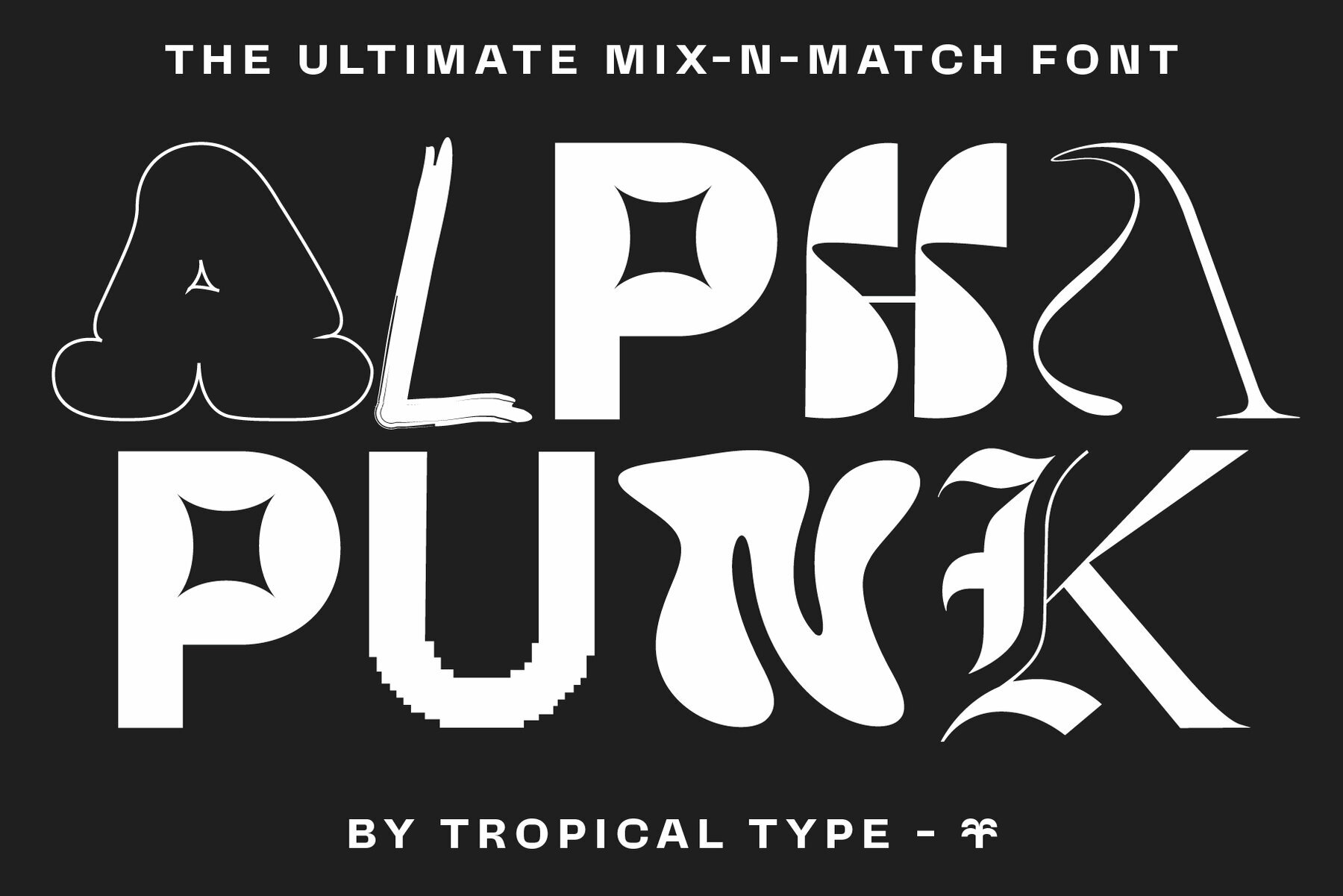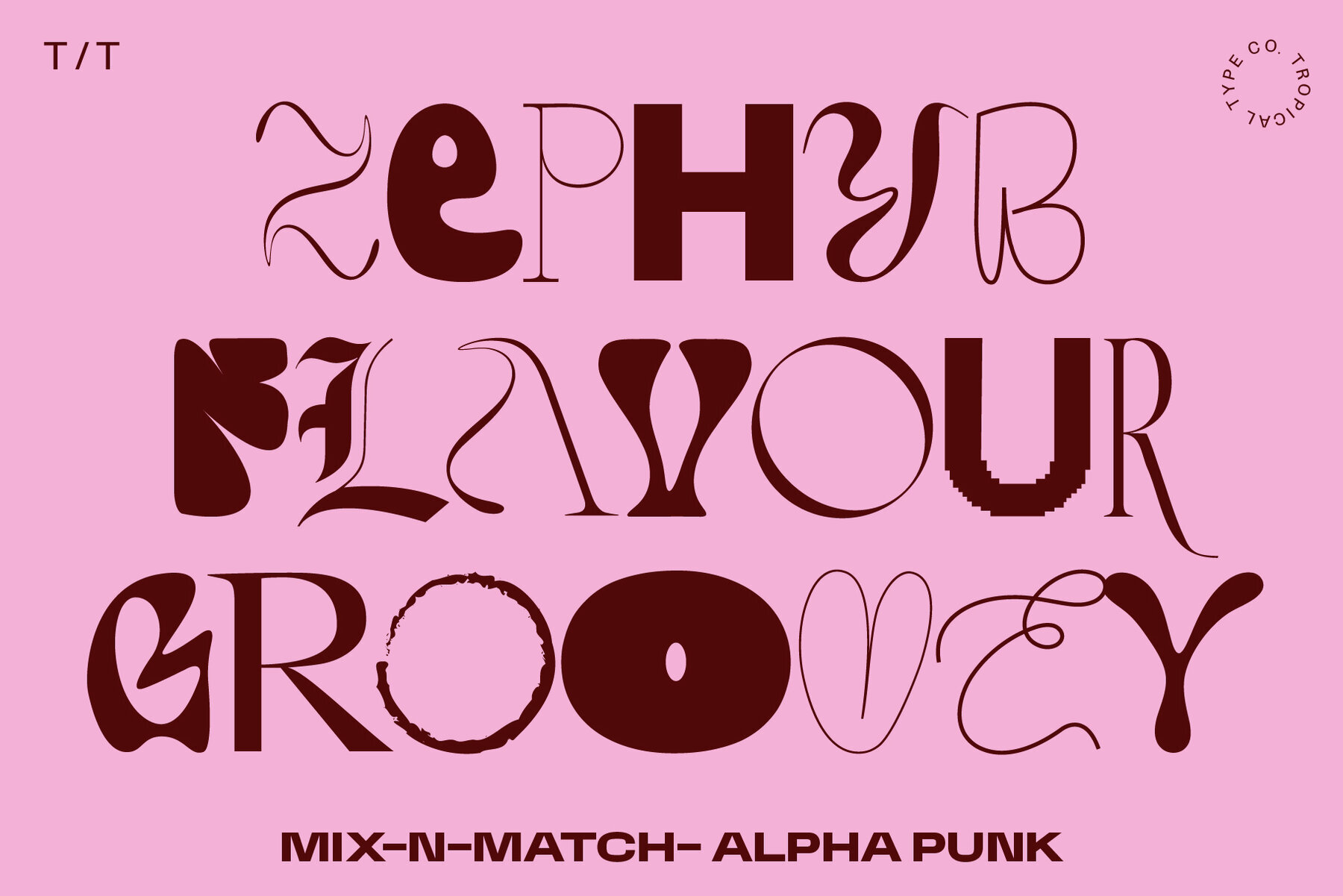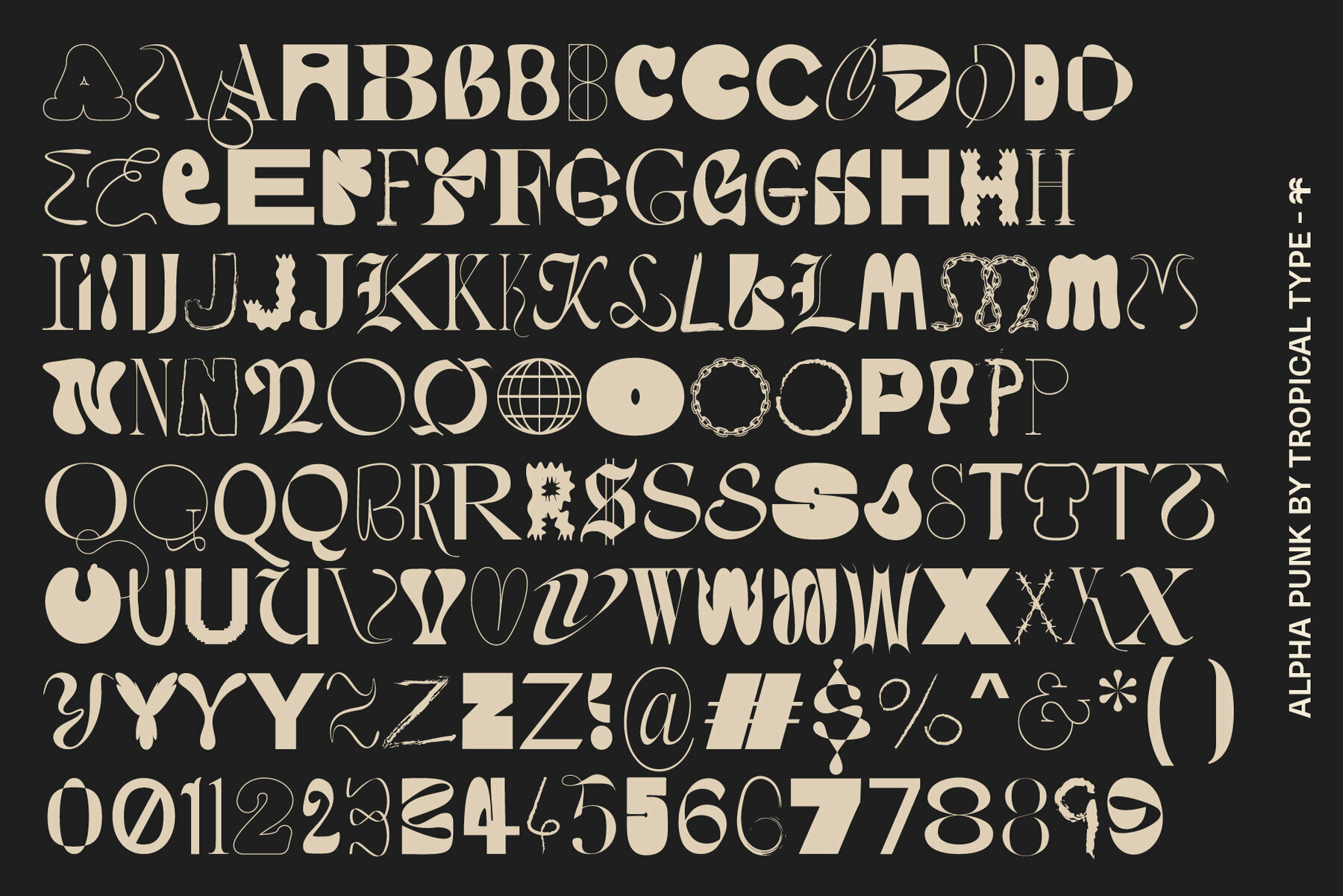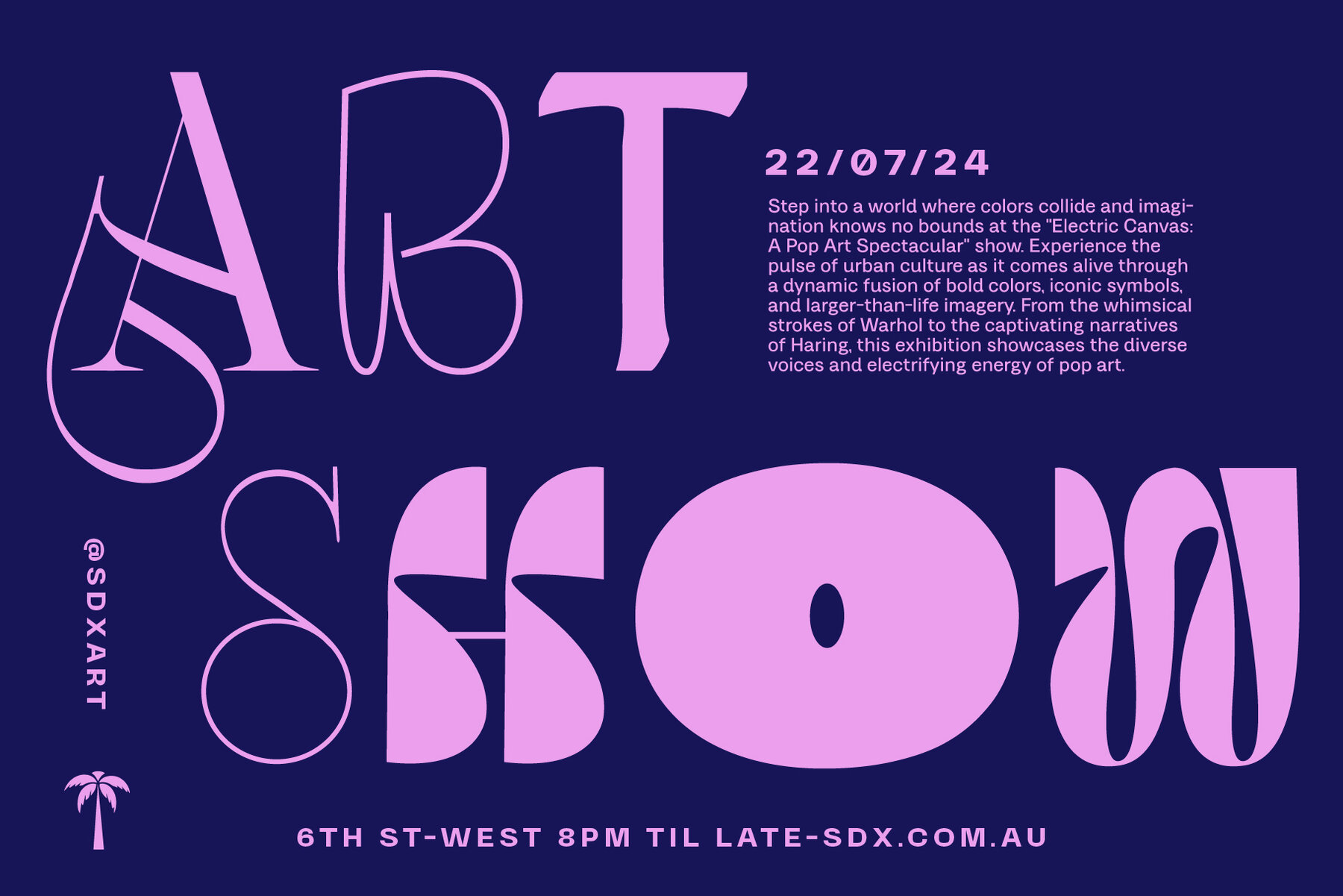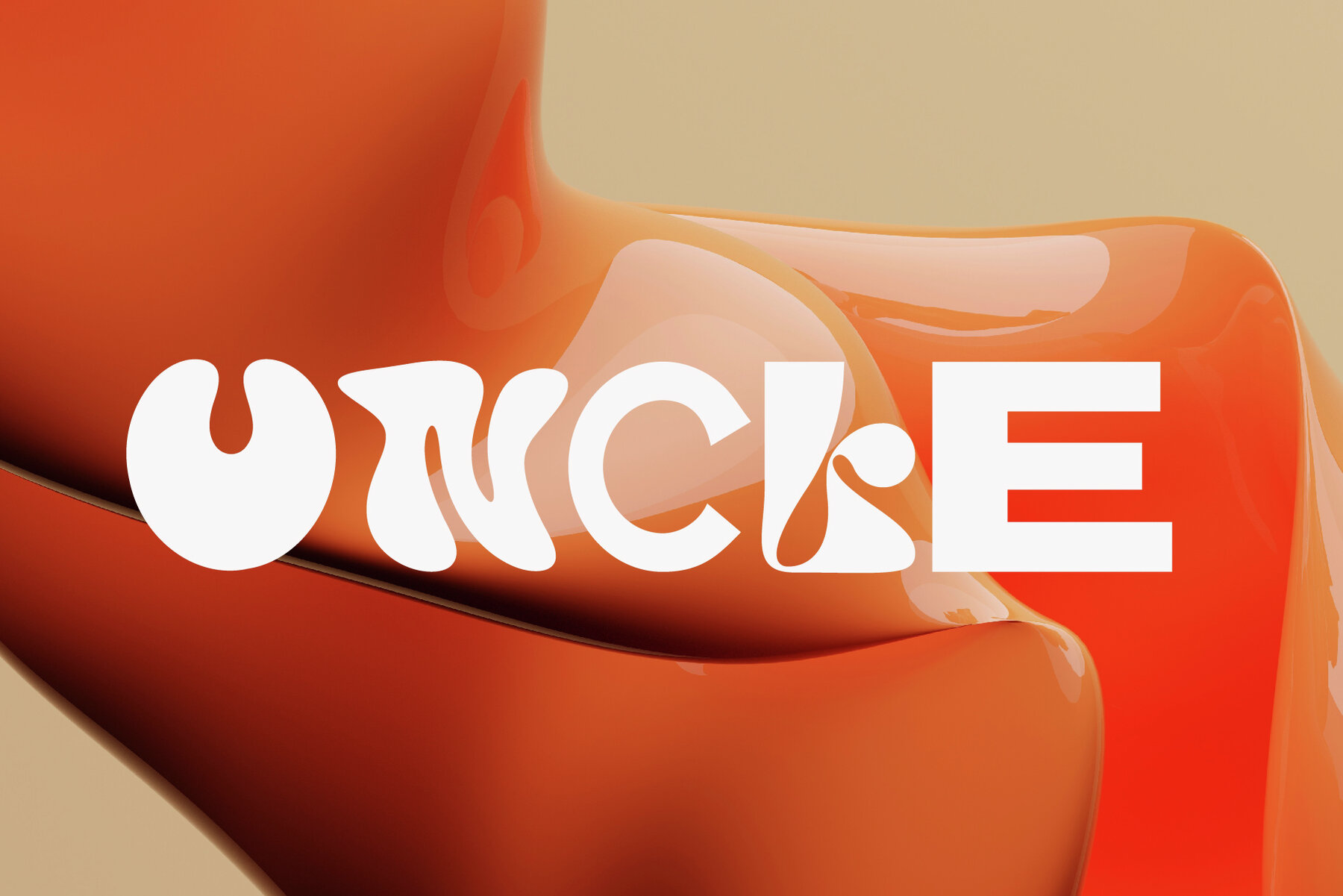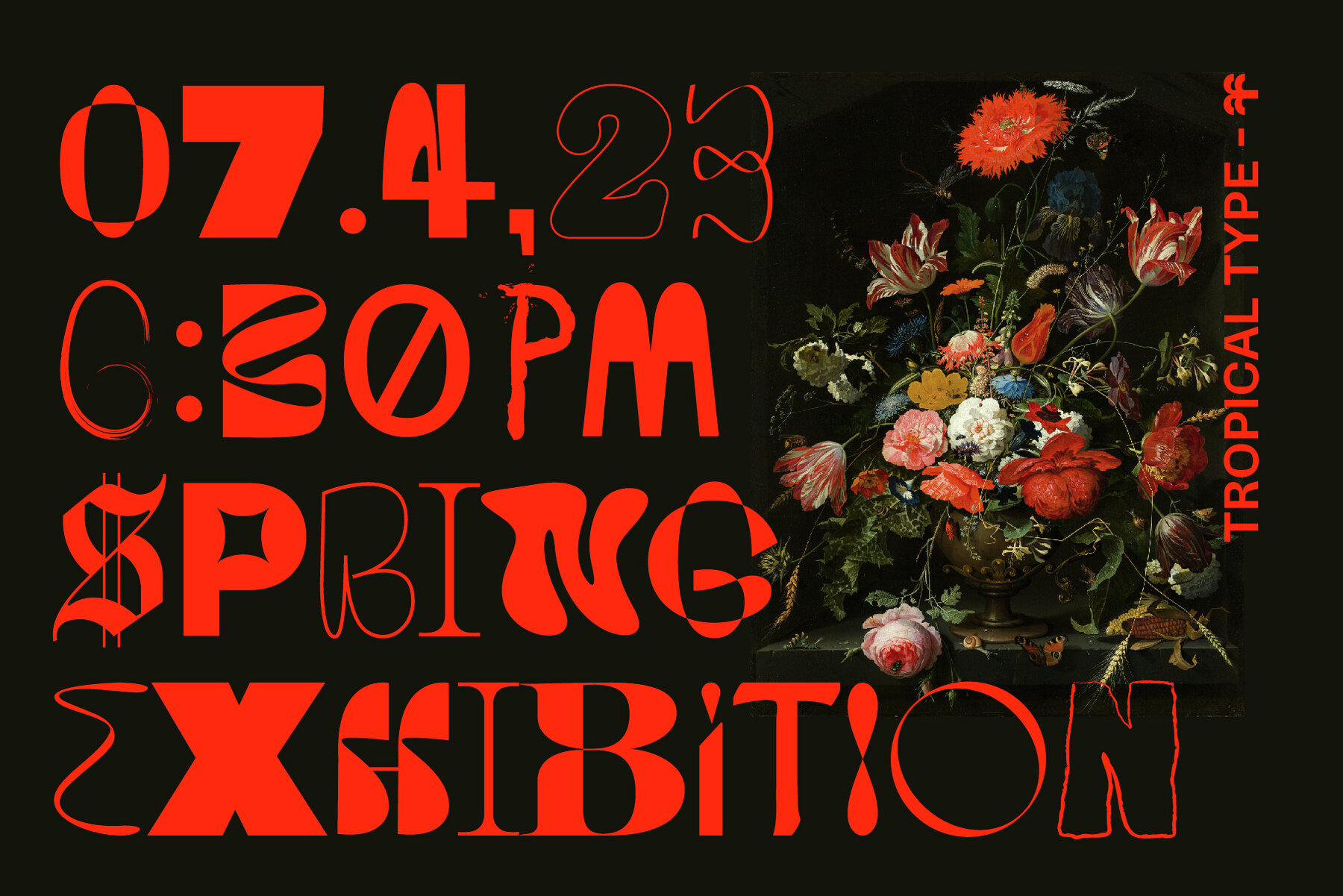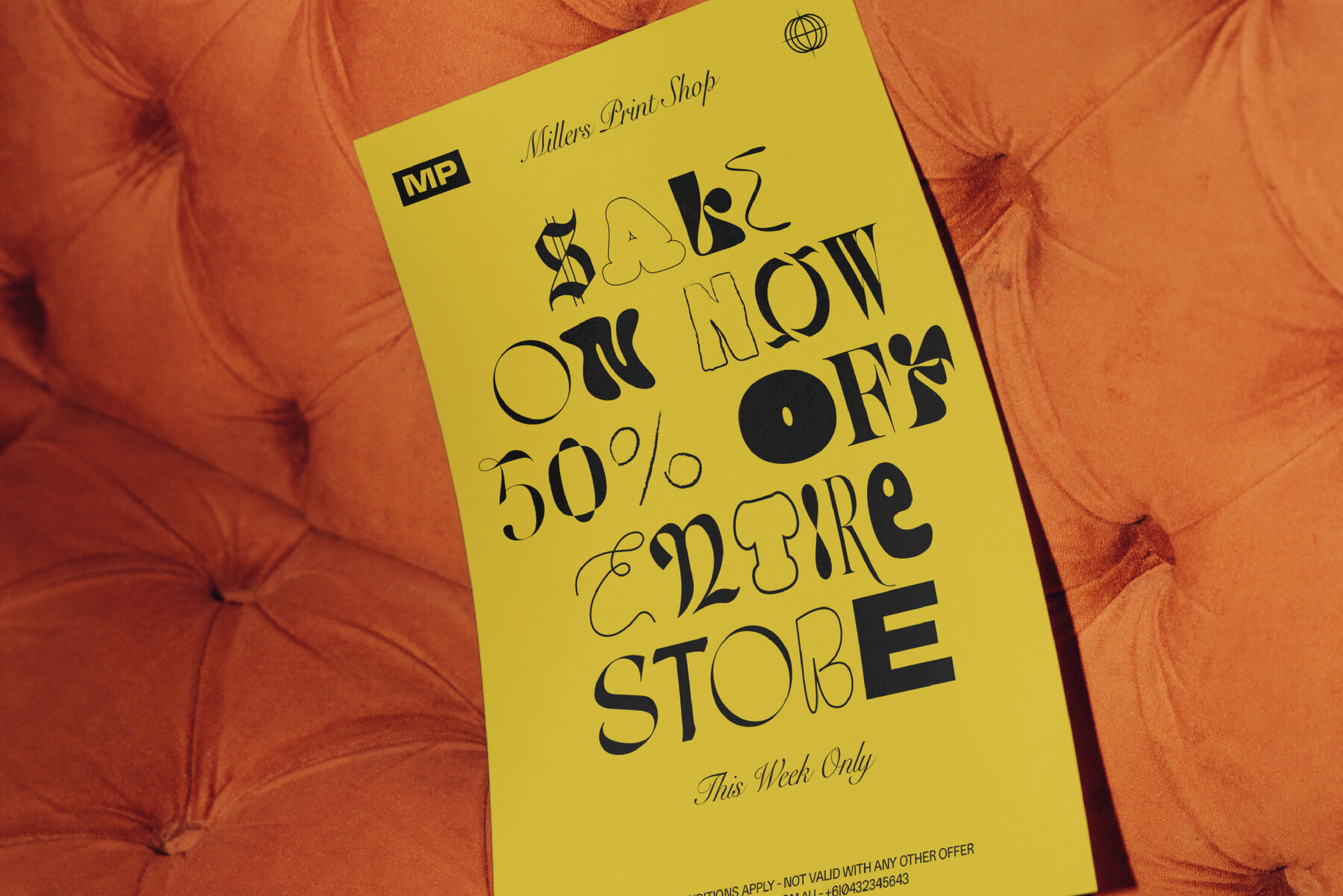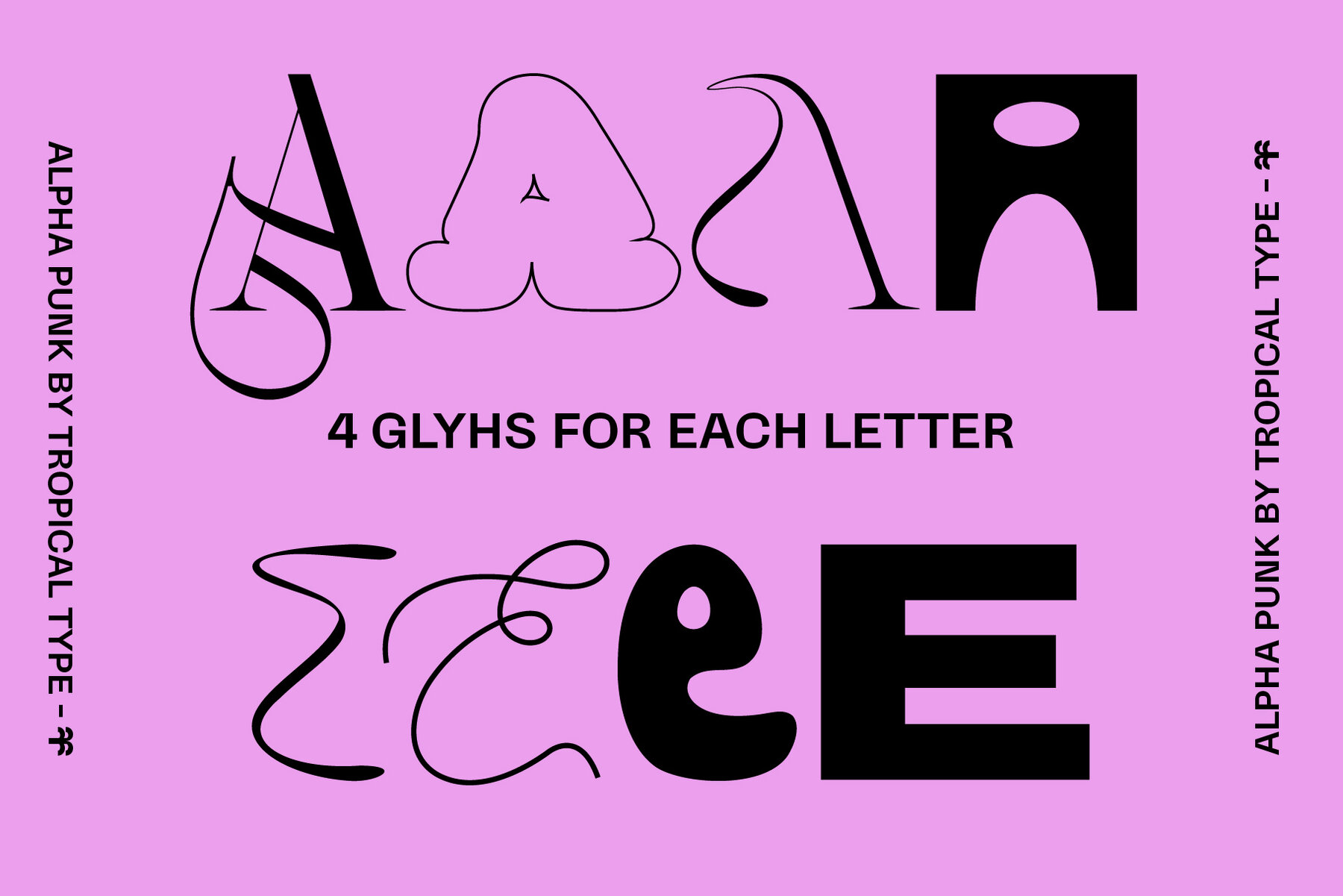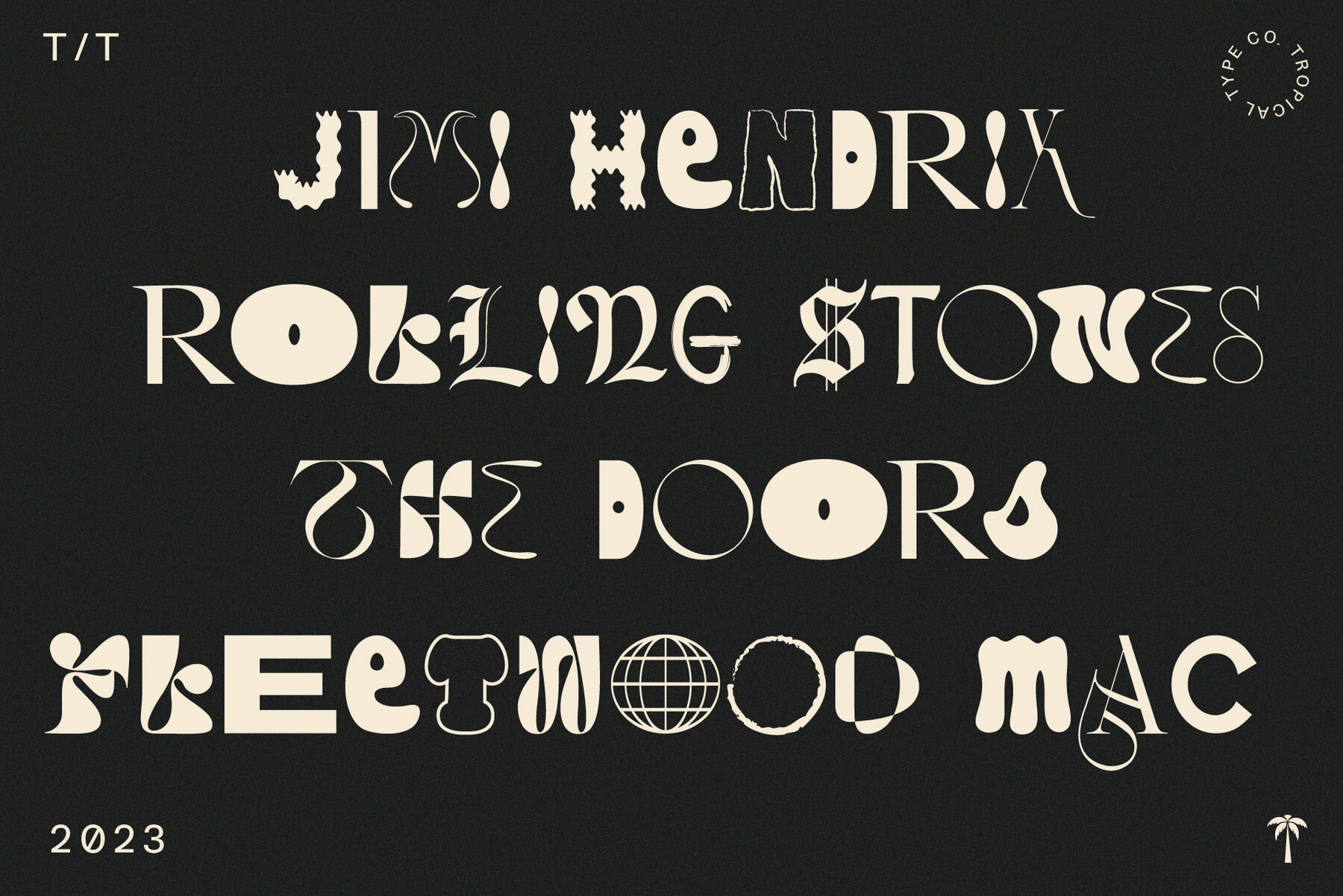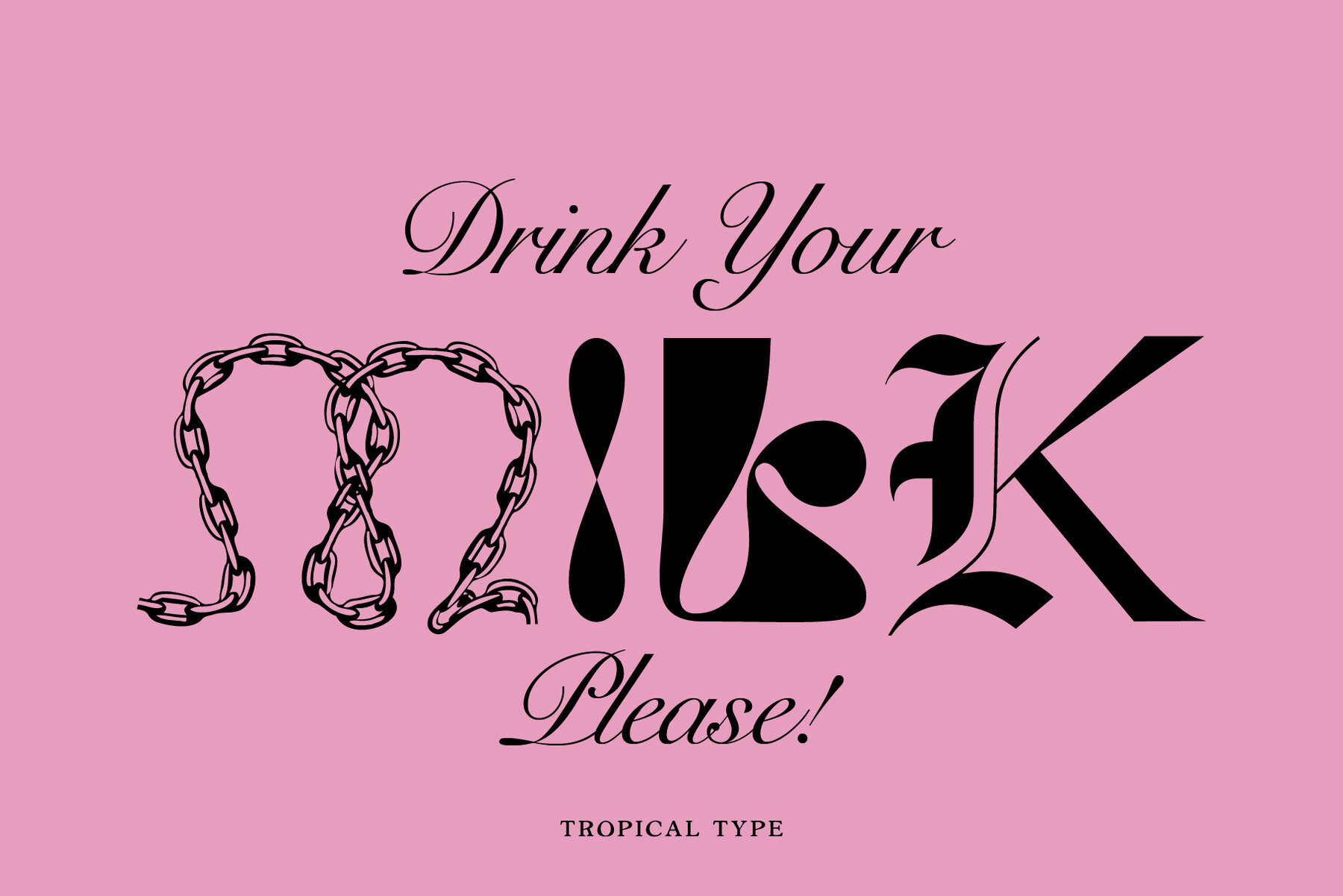
Alpha Punk Font
Alpha Punk offers a versatile approach to typography with its unique mix-and-match feature, allowing designers to choose from four distinct variations for every letter. This results in bold, experimental designs perfect for creating standout graphics. The typeface includes uppercase, lowercase, and alternate versions of each, plus numbers and their alternates. Additionally, Alpha Punk supports a wide range of non-English glyphs including special characters like Ą, Á, Â, and more. This makes it a comprehensive tool for international projects. Dive into creative possibilities with this dynamic and eclectic typeface to make your designs truly unique.